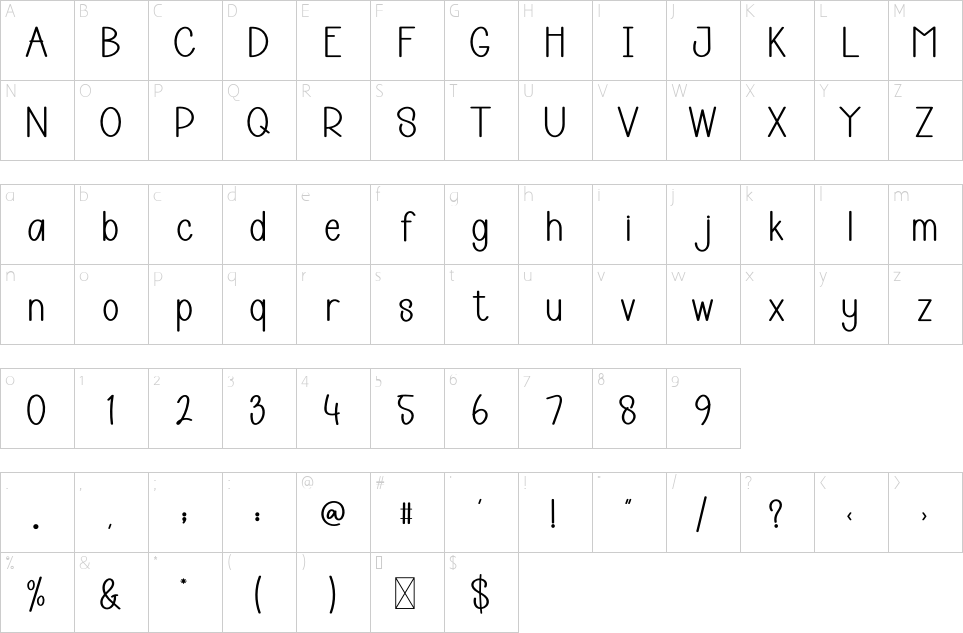
Natural Garden Schriftart
this is a sweet and friendly handwritten display font. Cute and fun, this font is ideal for writing wedding invitations, cards, or any other design that might need a playful touch!